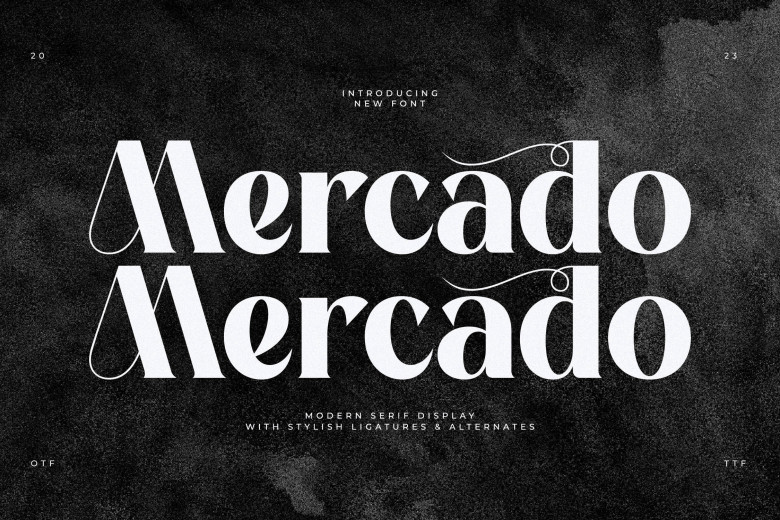
Mercado Font
Mercado is a modern and classic serif font that has own unique style & modern look. That will make this typeface perfect for an elegant & luxury logo, book or movie title design, fashion brand, magazine, clothes, lettering, quotes, and so much more.
Mercado Serif Font